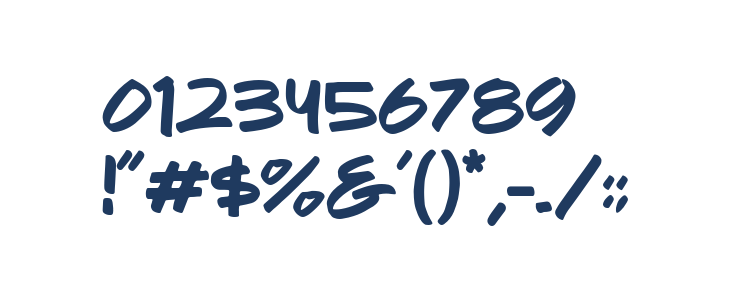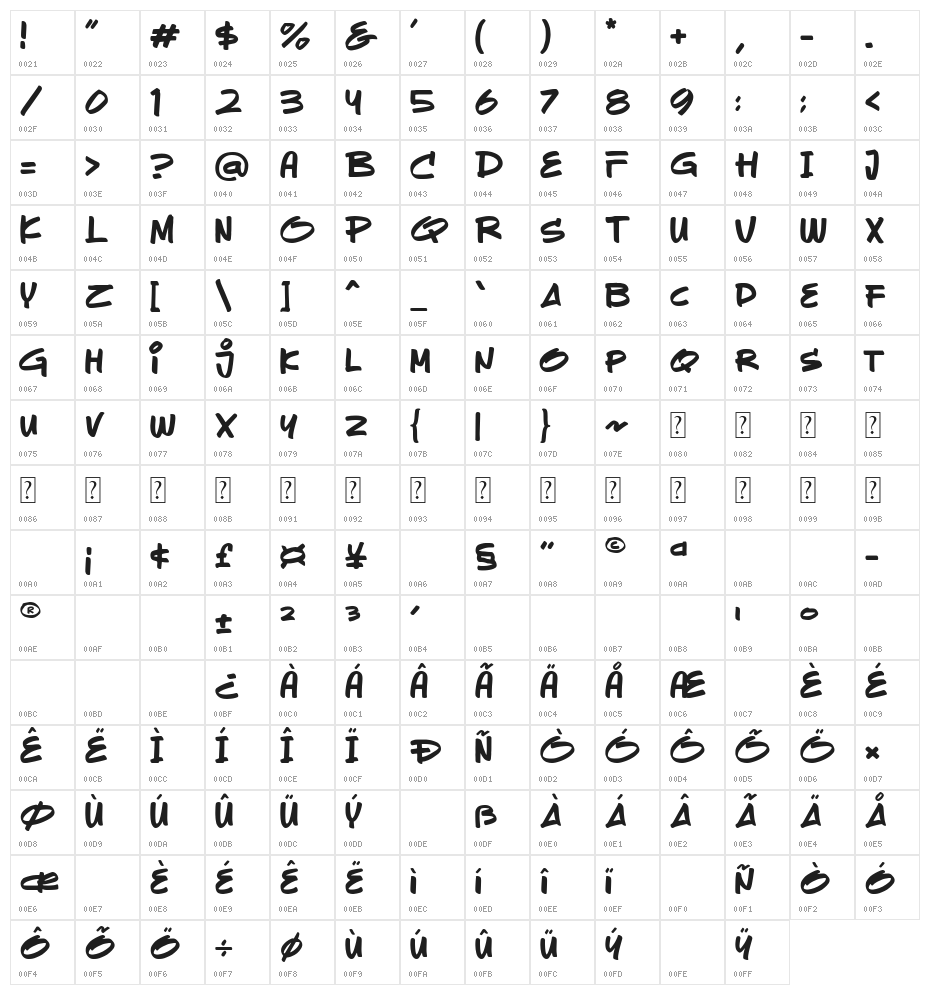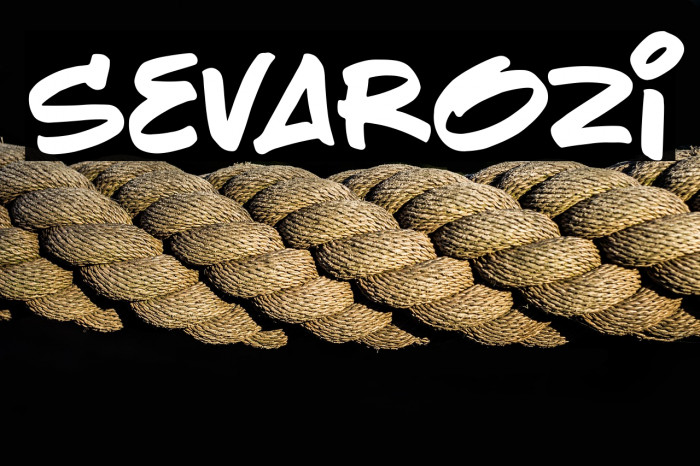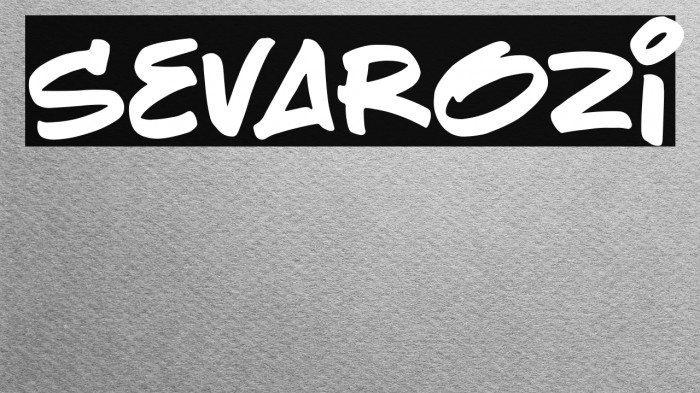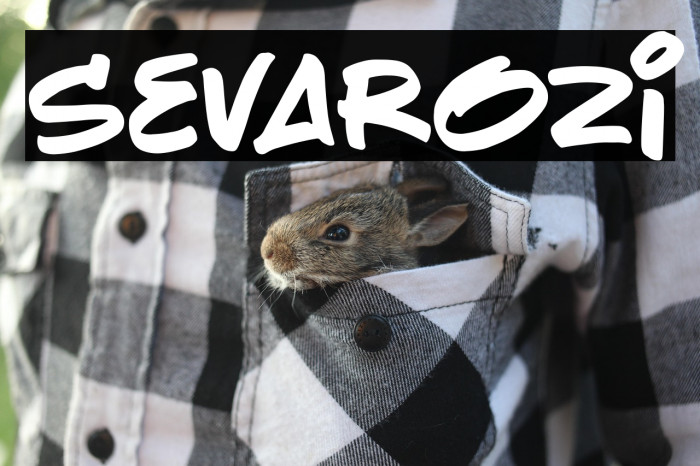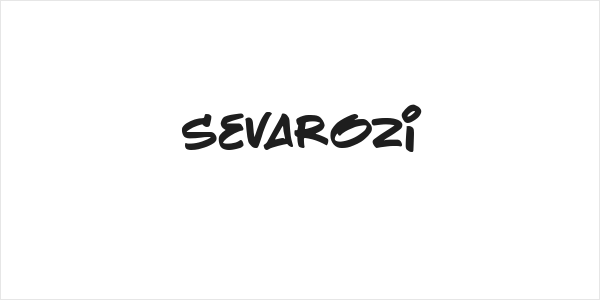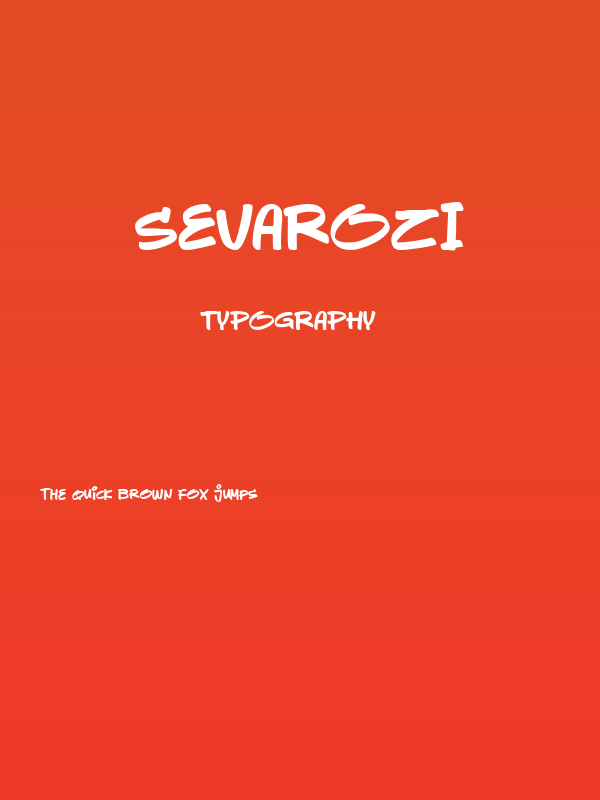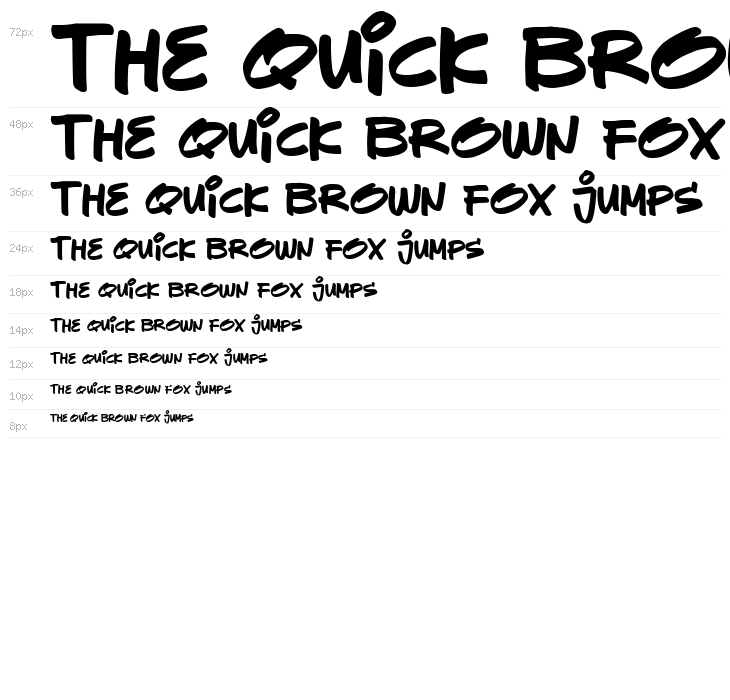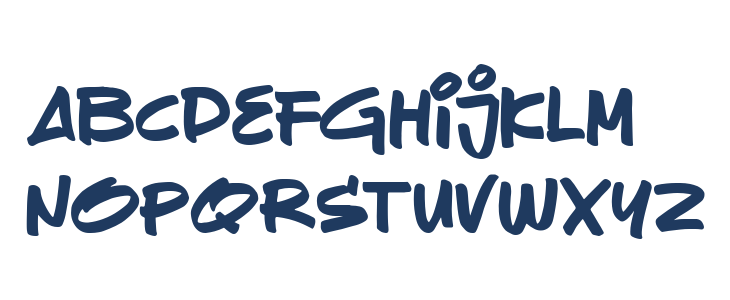
Sevarozi Font
Sevarozi Description
This font features a bold and playful handwritten style, characterized by its thick strokes and slightly irregular letterforms that convey a sense of energy and spontaneity. The uppercase and lowercase letters maintain a consistent style, with rounded edges and a casual flow that makes it approachable and friendly. The numerals and special characters are equally bold, ensuring readability and maintaining the font's lively aesthetic. This font is perfect for projects that require a personal touch or a sense of fun and creativity.
| Overall Style | Playful, Energetic |
| Proposed Projects | Ideal for children's books, playful branding, greeting cards, and creative posters. |